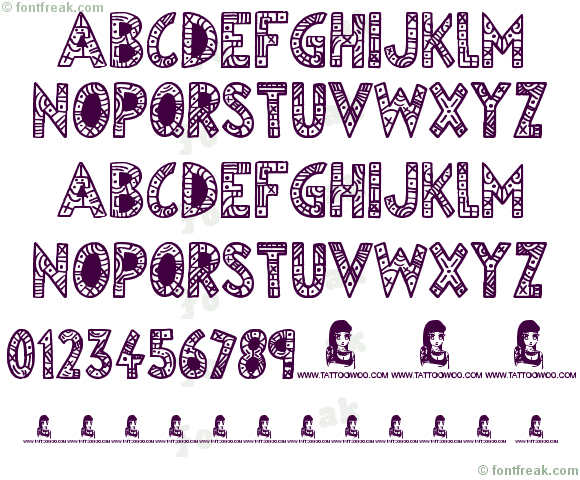
Egyptian Nights
About Egyptian Nights
Egyptian Nights is a unique decorative font designed by Jonathan S. Harris, categorized under display fonts. This visually striking typeface features a bold stroke weight with a playful, geometric style that incorporates intricate patterns reminiscent of ancient Egyptian motifs. The contrast between thick and thin lines adds depth to the characters, while the spacious letterforms enhance readability. Each letter showcases decorative elements that evoke the mystique and allure of Egyptian culture, making it a captivating choice for various design projects.
This font is particularly well-suited for creative applications such as movie posters, where its dramatic flair can draw attention and set the tone for an adventurous theme. It also shines in themed party invitations, adding a touch of exotic elegance that can transport guests to another world. Restaurant menus, especially those specializing in Middle Eastern or Mediterranean cuisine, can benefit from the font’s cultural resonance, making dishes appear more enticing. Additionally, graphic designers working on merchandise for festivals or events will find Egyptian Nights to be an eye-catching choice that stands out in crowded marketplaces.
What sets Egyptian Nights apart is its ability to blend functionality with artistic expression. Its intricate designs not only serve as a visual treat but also carry cultural significance, making it a memorable choice for any creative endeavor. Whether you’re crafting a bold headline or an inviting layout, this font offers a unique touch that captures the imagination.